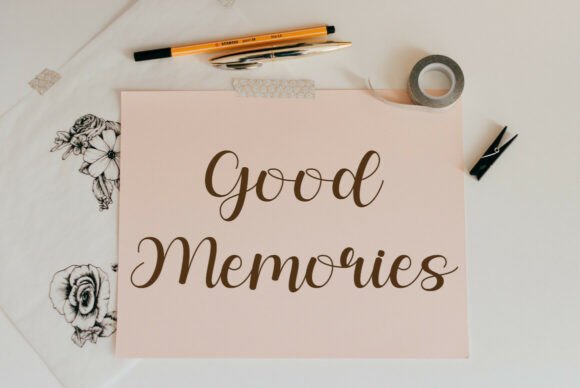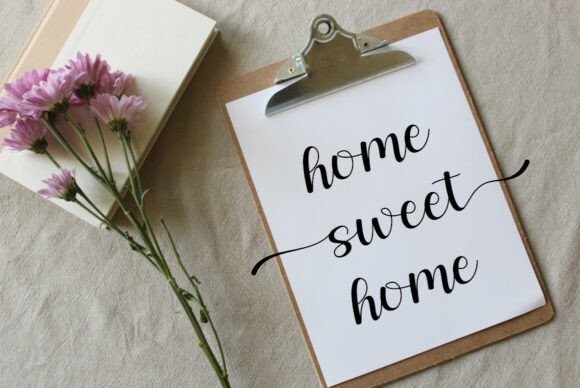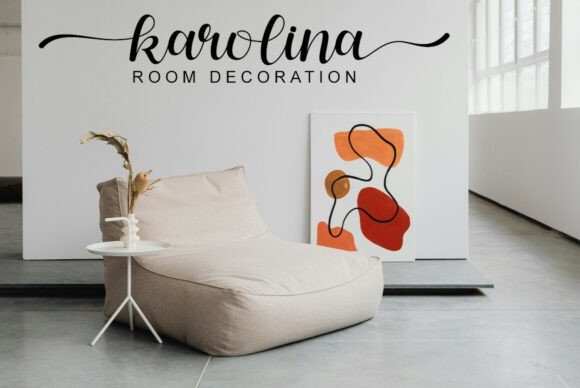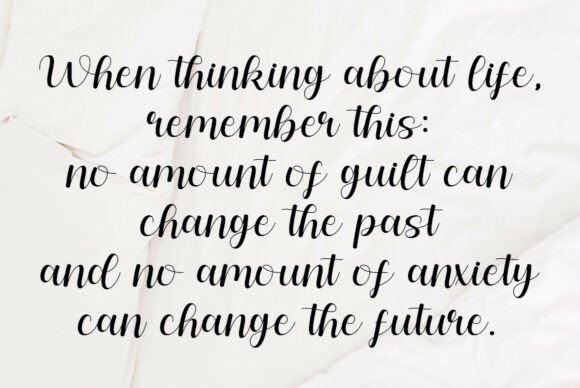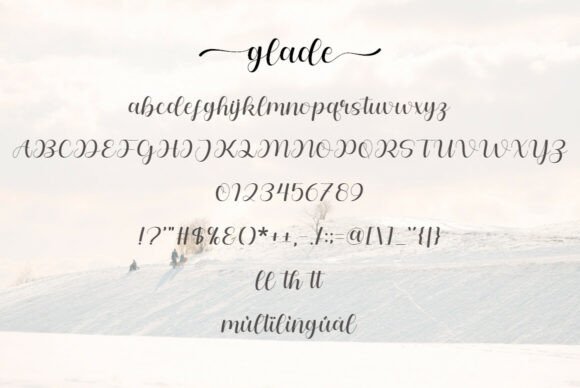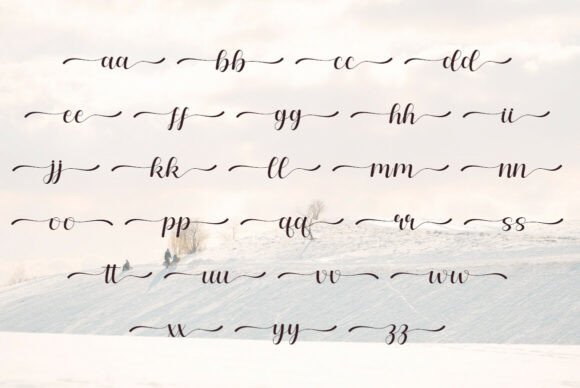
Introducing Glade Font: Elevate Your Designs with Elegance and Sophistication
In the world of typography, a font can make or break a design. For designers and crafters looking to add a touch of elegance and sophistication to their projects, Glade Font is an exceptional choice. This stylish and incredibly elegant handwritten font is perfect for a variety of applications, from wedding invitations and thank you cards to quotes, greeting cards, logos, business cards, and more.
What Makes Glade Font Stand Out?
Glade Font boasts a unique, handwritten aesthetic that instantly elevates any design. Its elegant strokes and beautiful letterforms make it a versatile font suitable for various creative projects. Whether you’re working on a wedding invitation, a branding project, or a simple greeting card, Glade Font adds a touch of sophistication and refinement.
Key Features of Glade Font
- PUA Encoded: Glade Font is PUA (Private Use Area) encoded, which means you can easily access all the glyphs and alternates. This feature is particularly useful for designers who want to experiment with different variations of their text without the hassle of manually adjusting each letter.
- Handwritten Elegance: The font’s handwritten nature gives it a personal and intimate feel, making it perfect for designs that require a human touch.
- Versatility: From formal events like weddings to casual projects like greeting cards, Glade Font adapts seamlessly to various design needs.
Applications of Glade Font
Glade Font’s versatility is one of its most compelling features. Here are some of the many ways you can use this beautiful font:
- Wedding Invitations: Add a touch of elegance and romance to your wedding invitations. Glade Font’s beautiful letterforms make it perfect for conveying the joy and sophistication of your special day.
- Thank You Cards: Express your gratitude in style with beautifully designed thank you cards. The font’s elegant strokes and personal feel make it ideal for acknowledging special moments.
- Quotes and Greeting Cards: Whether you’re creating inspirational quotes or greeting cards for various occasions, Glade Font adds a touch of class and sophistication.
- Logos and Business Cards: For businesses looking to stand out, Glade Font offers a unique opportunity to create memorable logos and business cards. Its elegant and professional look can help elevate your brand’s image.
- Utilize Glyphs and Alternates: Take advantage of Glade Font’s PUA encoding by exploring the various glyphs and alternates. This can add depth and uniqueness to your designs.
Glade Font is a stylish and elegant handwritten font that can transform your designs. Its versatility, ease of use, and beautiful aesthetic make it an excellent choice for designers and crafters looking to add a touch of sophistication to their projects. Whether you’re working on wedding invitations, logos, greeting cards, or any other design that needs a handwritten touch, Glade Font is sure to impress.
With its PUA encoding, you have the flexibility to experiment with different glyphs and alternates, making your designs truly unique. So, why settle for ordinary when you can create something extraordinary with Glade Font? Elevate your designs today and experience the elegance and sophistication that Glade Font has to offer.